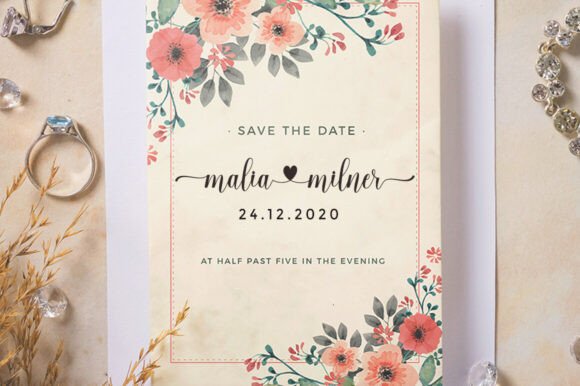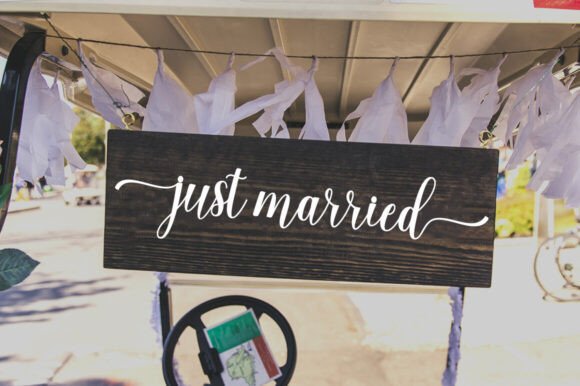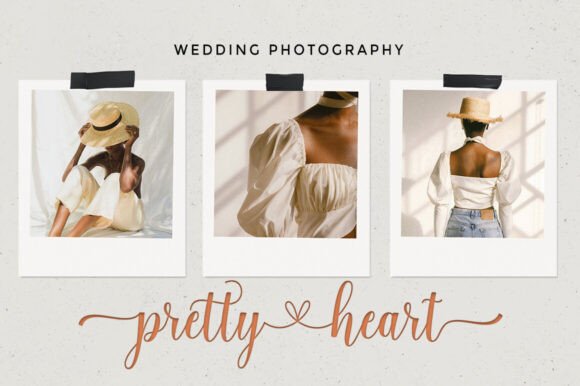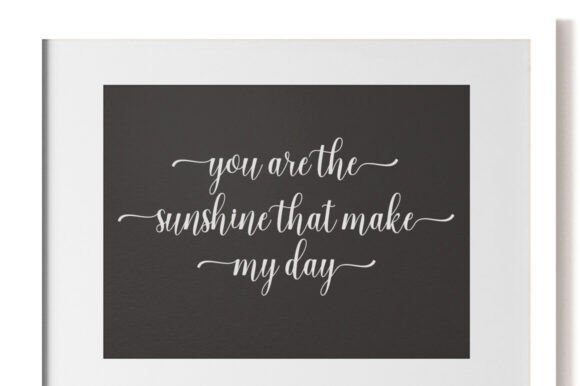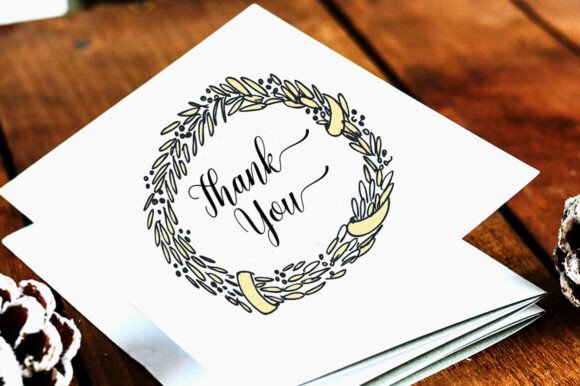
Baby Boho Font: Elevate Your Creativity with Elegance
In the realm of typography, few fonts capture the essence of whimsy and sophistication as beautifully as the Baby Boho Font. This enchanting script font is meticulously crafted with a touch of elegance, making it an indispensable asset for designers, crafters, and anyone looking to infuse their projects with a dash of magic. In this article, we’ll delve into the world of Baby Boho, exploring its unique features, uses, and the creative possibilities it unlocks.
The Charm of Baby Boho
Baby Boho is more than just a font; it’s a creative companion that brings a touch of bohemian chic to any project. Its carefully designed letters exude a sense of elegance and playfulness, making it perfect for a wide range of applications. Whether you’re working on Instagram posts, DIY projects, or professional designs, Baby Boho has the versatility to turn your ideas into stunning pieces of art.
Features of Baby Boho Font
- Elegant Script: Baby Boho boasts a beautiful, flowing script that adds a touch of sophistication to any text.
- Magical Touch: The font’s unique design elements give it a whimsical feel, perfect for projects that require a bit of charm.
- Versatile: From Instagram posts to calligraphy scripts, Baby Boho’s versatility knows no bounds.
- Easy to Use: Designed with user-friendliness in mind, Baby Boho can be easily integrated into various design projects.
Uses of Baby Boho Font
The applications of Baby Boho are vast and varied. Here are a few ideas to get you started:
- Instagram and Social Media: Elevate your social media posts with stylish and eye-catching text.
- DIY Projects: Add a personal touch to your DIY crafts, such as handmade cards, invitations, and decorations.
- Graphic Design: Use Baby Boho in professional design projects, including brochures, posters, and logos, to add a unique flair.
- Calligraphy and Hand Lettering: Practice your calligraphy skills or create beautiful hand-lettered pieces with Baby Boho.
Tips for Using Baby Boho Font
To make the most of Baby Boho, consider the following tips:
- Mix and Match: Combine Baby Boho with other fonts for a unique look, but ensure they complement each other.
- Play with Sizes: Experiment with different font sizes to create visual hierarchy and emphasis.
- Color Matters: Choose colors that match the mood of your project. Pastels, earth tones, and metallics work well with Baby Boho.
- Practice Makes Perfect: Don’t be afraid to experiment and practice using Baby Boho in different contexts.
Baby Boho Font is a magical tool that can transform your creative projects into true pieces of art. Its elegant script, magical touch, and versatility make it an excellent choice for designers, crafters, and anyone looking to add a dash of whimsy and sophistication to their work. With its wide range of applications and user-friendly design, Baby Boho is sure to become a favorite in your creative arsenal. So, unleash your creativity, and let Baby Boho guide you in creating enchanting designs that captivate and inspire.